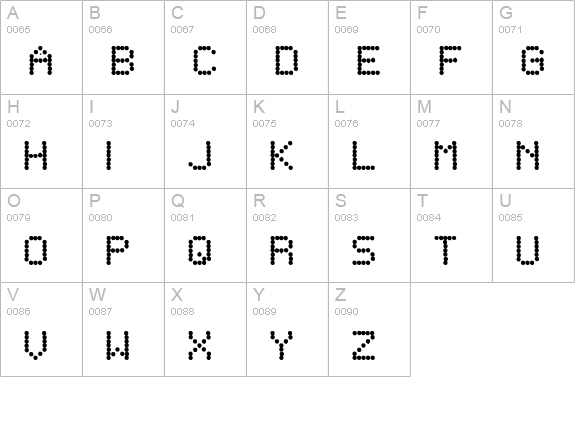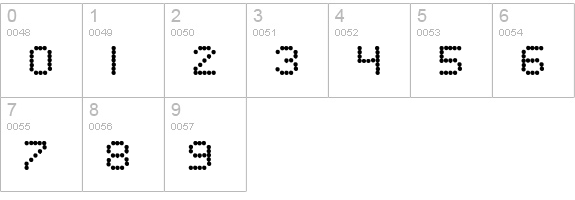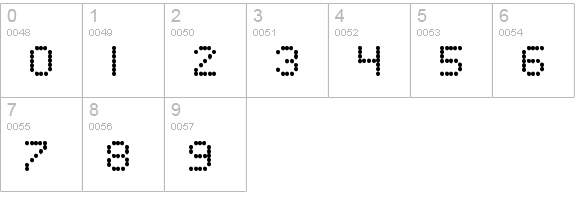
SF Telegraphic Bold is a strong, high-contrast variant in the SF typeface family \xE2\x80\x94 well suited to headlines, attention-grabbing titles, and strong calls-to-action.
SF Telegraphic Bold is a typeface that exudes strength and confidence, its bold and commanding presence making a statement in any design project. With its distinct and angular letterforms, this font captures the essence of modernity and industrialism. It is perfect for headlines, posters, and any other application where you want to grab attention. What sets SF Telegraphic Bold apart is not just its remarkable aesthetic appeal, but also the fact that it is freely available to download at FontsMarket.com. As a designer or typographer, you can now enjoy the freedom of using this exceptional font without any monetary constraints. This means that you can bring your creative visions to life without worrying about breaking the bank. The versatility of SF Telegraphic Bold makes it suitable for a wide range of design styles, from futuristic and tech-inspired layouts to retro and vintage-themed projects. Its bold and impactful nature ensures that your message will be conveyed with clarity and authority, leaving a lasting impression on your audience. Whether you are working on a logo, a branding project, or even a website design, SF Telegraphic Bold will undoubtedly add a touch of professionalism and sophistication to your work. Its strong and dynamic character will captivate viewers and make your designs stand out from the crowd. Download SF Telegraphic Bold for free at FontsMarket.com and unlock the potential to create visually stunning and impactful designs. This font is not just a tool, but a gateway to unlimited creativity and design possibilities. Embrace the freedom of expression and elevate your design projects with SF Telegraphic Bold.